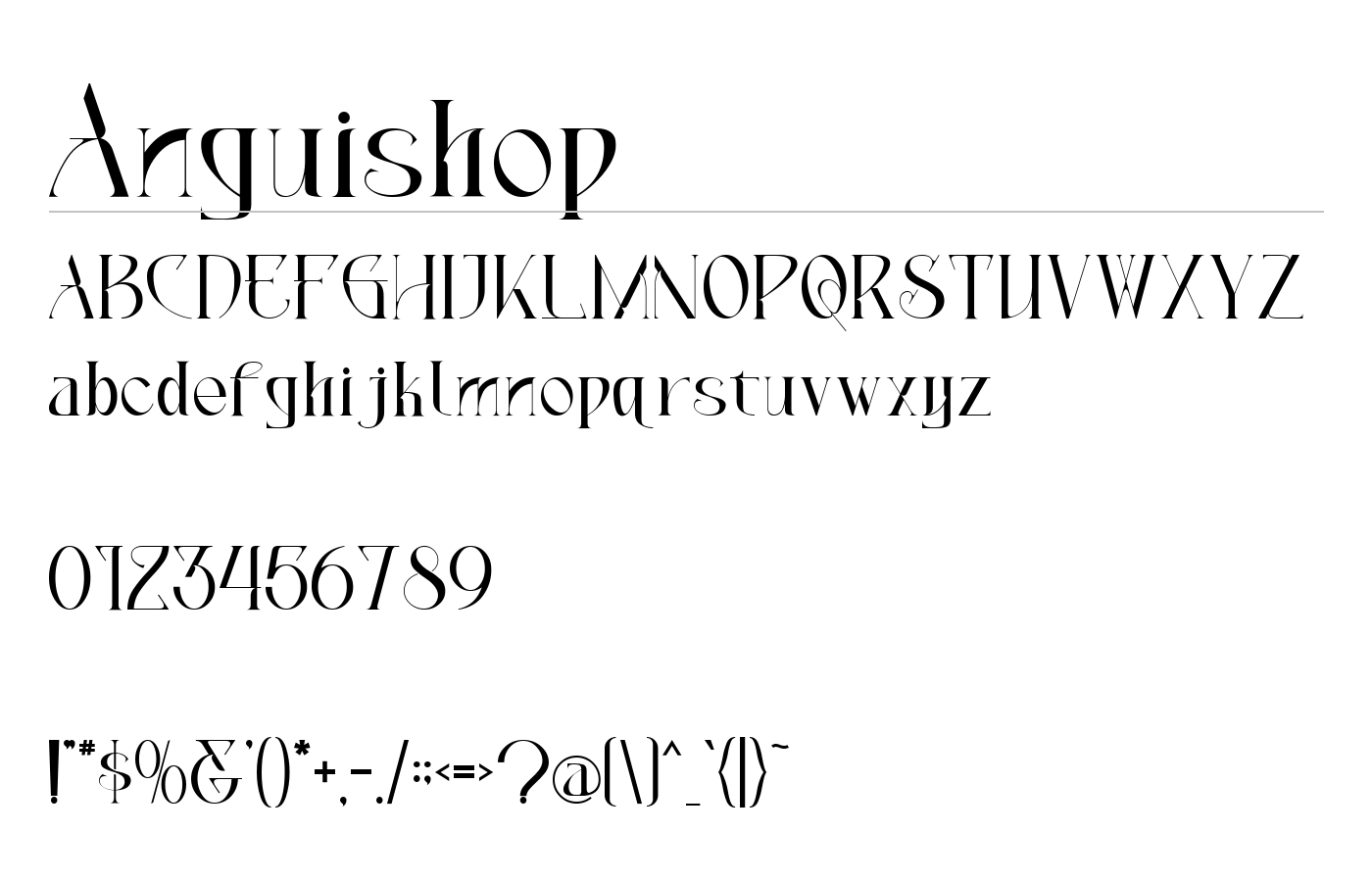
Anguishop is an elegant serif font characterized by its high contrast between thick and thin strokes and delicate, sharply defined serifs. Its narrow, tall letterforms with unique flourishes and stylized details create a sophisticated and artistic feel, making it ideal for luxury branding, editorial headlines, and fashion-related designs where a refined and distinctive appearance is desired. This font stands out with its dramatic and graceful personality, perfect for projects seeking a touch of modern elegance with a classic twist.
Anguishop Font
About Anguishop Font